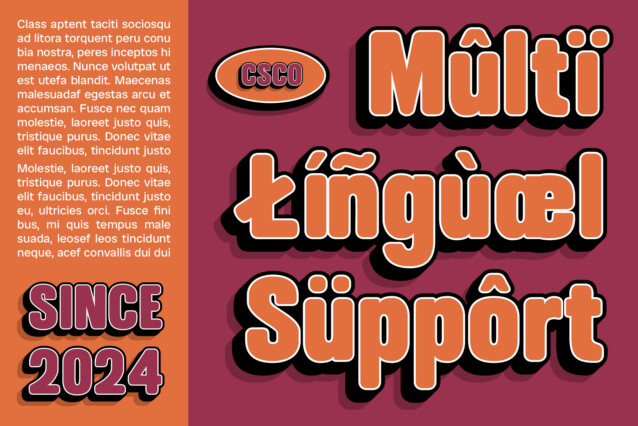
Arnel Rounded 3D Font
Arnel Rounded 3D Font is a bold sans-serif font that combines visual strength with a warm, approachable character. Its thick letterforms and rounded corners create a strong, masculine impression while ensuring a friendly and inviting appearance. This balance of power and approachability makes it perfect for a variety of design applications.